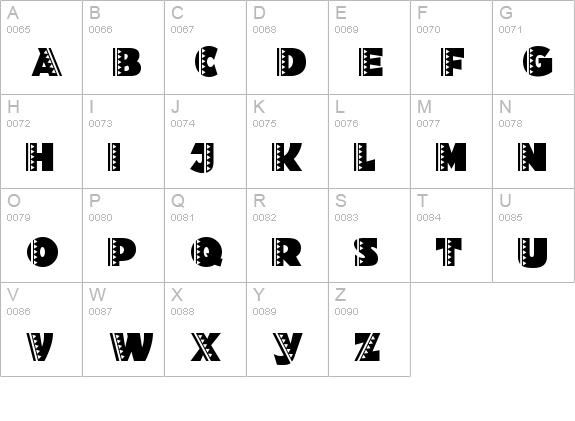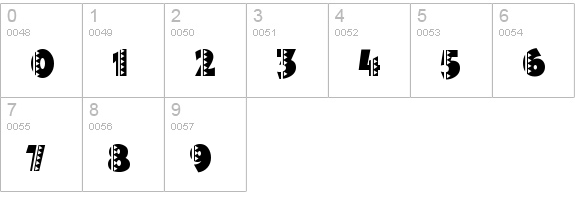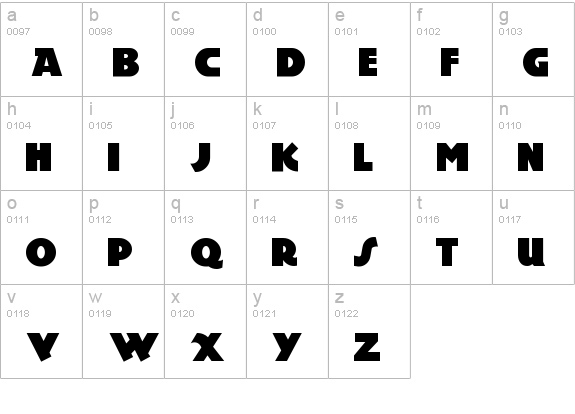
Introducing the exquisite Holy-Ravioli font, a delightful blend of elegance and playfulness that will bring a touch of whimsy to your projects. This unique typeface features charming curves and intricate details that make each letter a work of art. Perfect for adding a touch of sophistication to invitations, branding, or any creative endeavor, Holy-Ravioli is sure to captivate and inspire. What makes Holy-Ravioli even more appealing is that it is available for free download at FontsMarket.com. Yes, you read that right - this stunning font can be yours at no cost, allowing you to unleash your creativity without any constraints. Don't miss out on this fantastic opportunity to enhance your designs with the beauty of Holy-Ravioli. Download it today and let your imagination soar!